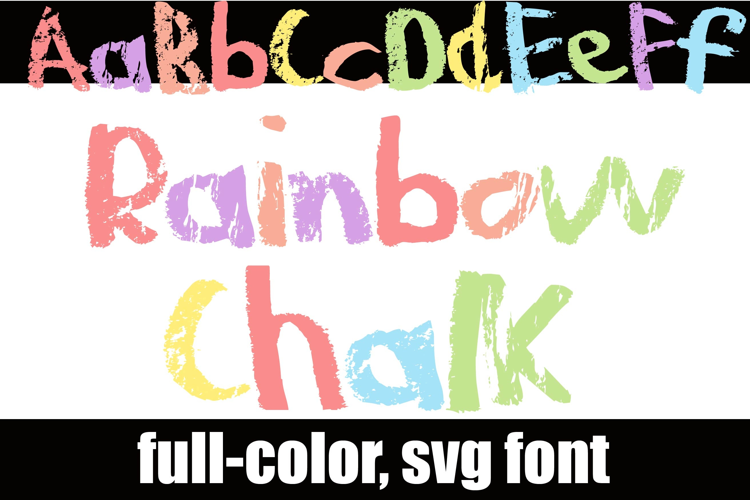
Rainbow Chalk
This full-color font features chalk style font in a rainbow of colors. There is an alt case of additional colors of each letter that you can access through your system or Silhouette's glyph map.